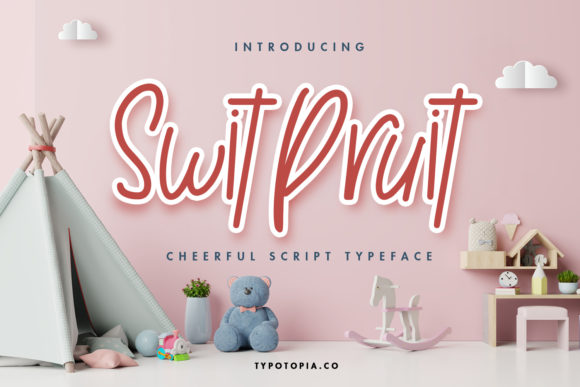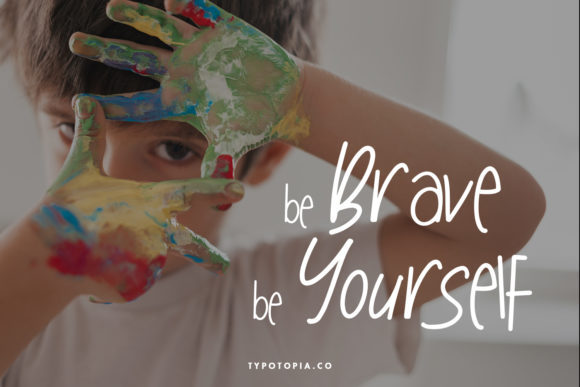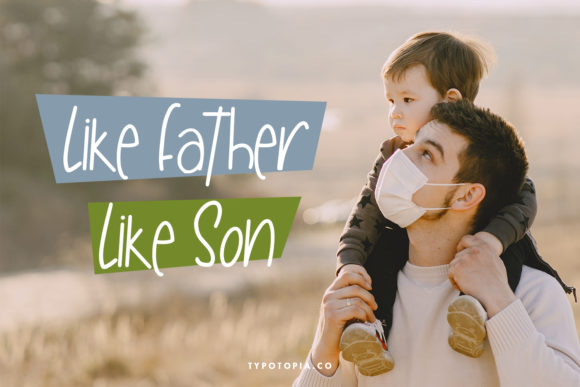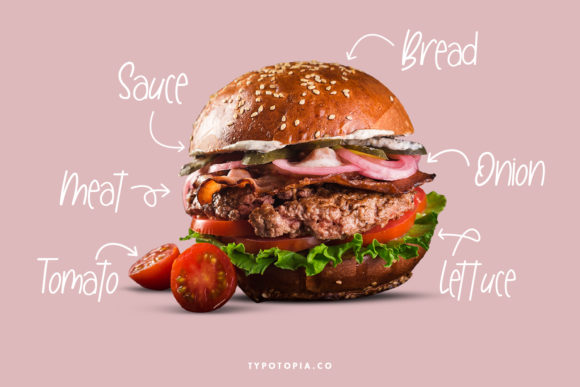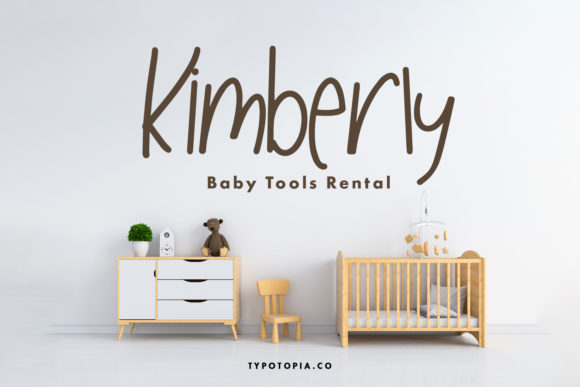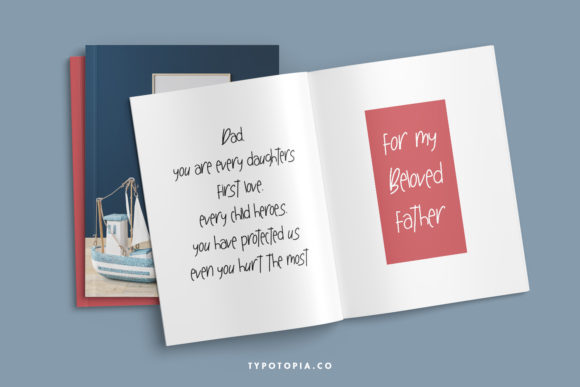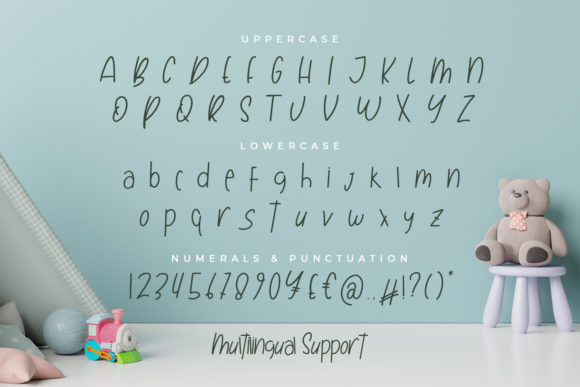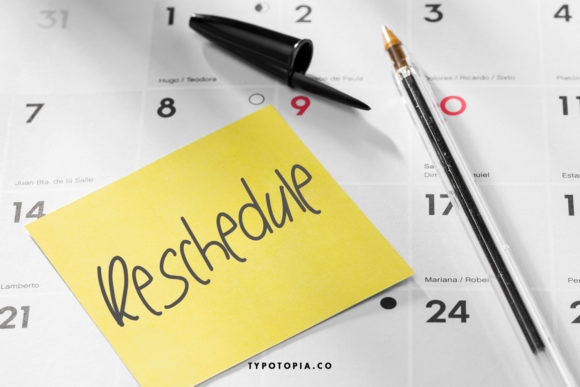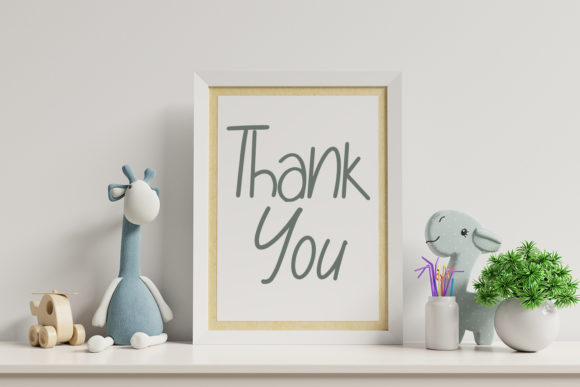
Swit Pruit Font
Introducing “Swit Pruit,” a cute and quirky handwritten font that will steal your heart with its charm. Whether you need fonts for Instagram posts or delightful calligraphy scripts for your DIY projects, this font is the perfect choice to transform any creative idea into a true work of art!
The playful and whimsical nature of “Swit Pruit” makes it an ideal match for social media graphics. From fun-filled Instagram stories to eye-catching posts, this font adds a touch of cuteness and personality that resonates with your audience. Let it bring joy and lightheartedness to your content, creating a delightful experience for your followers.
For your DIY projects, “Swit Pruit” serves as the perfect calligraphy script. Its quirky and hand-drawn style adds a unique and artistic touch to your creations, whether it’s custom cards, gift tags, or charming art prints. Embrace the creative spirit of this font, and watch as it elevates your crafts to a whole new level of cuteness and charm.
The versatility of “Swit Pruit” knows no bounds. Its legible and well-crafted characters ensure that your text is easy to read and pleasing to the eye. Whether you’re working on print materials or digital designs, this font adapts effortlessly to various contexts, making it a reliable choice for all your creative ventures.
As you explore the endless possibilities with “Swit Pruit,” you’ll find that it becomes your go-to font for adding a touch of playfulness to your projects. It will infuse your designs with a sense of whimsy and character, leaving a lasting impression on anyone who encounters them.
So, embrace the cuteness of “Swit Pruit” and let it be the heartwarming ingredient in your creative endeavors. Whether you’re a seasoned designer or a creative enthusiast, this font empowers you to express yourself with genuine fun and creativity. Let “Swit Pruit” bring a smile to your audience’s face and turn your creative ideas into delightful works of art that they’ll cherish and adore.